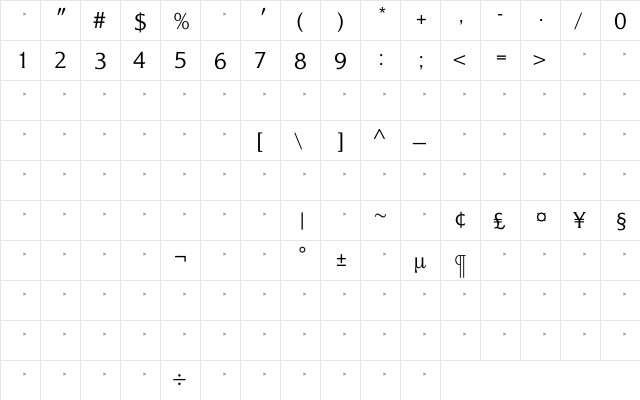
AlexonLightTab Regular
Design Context for AlexonLightTab Typeface
AlexonLightTab is a composed and adaptable typeface that performs quietly and consistently across a wide range of design contexts. The delicate stroke weight brings airiness and refinement to layouts.